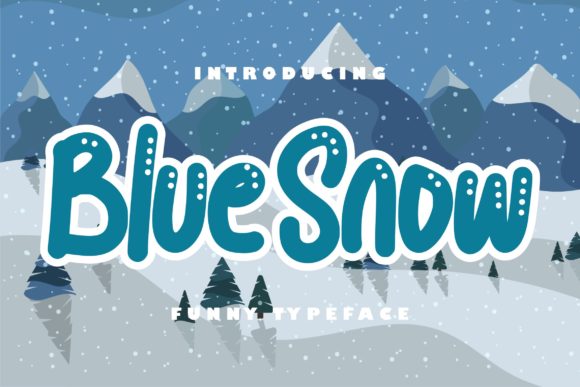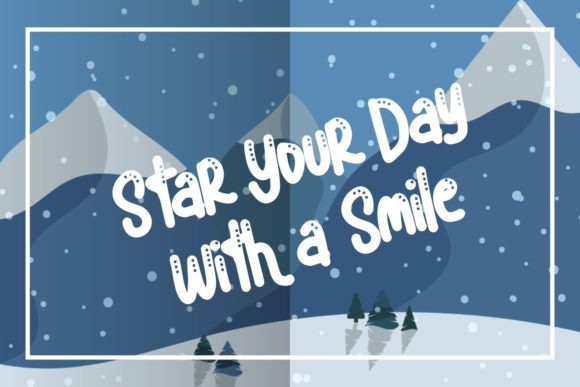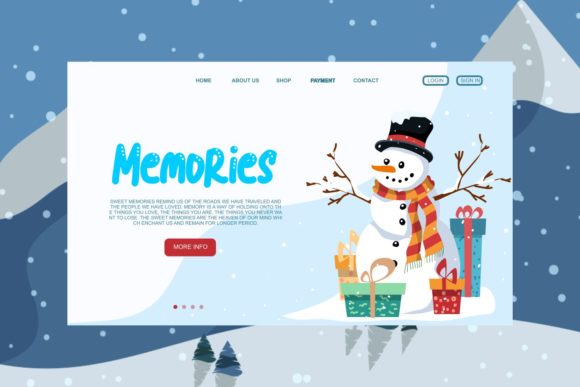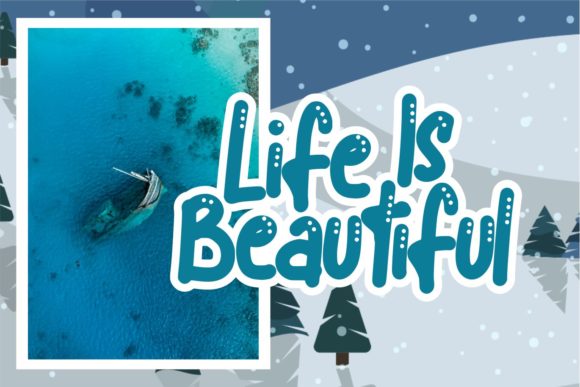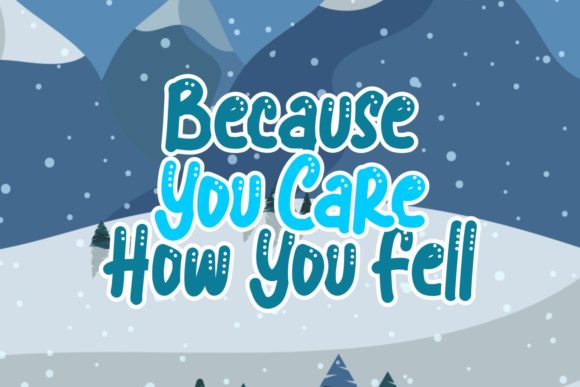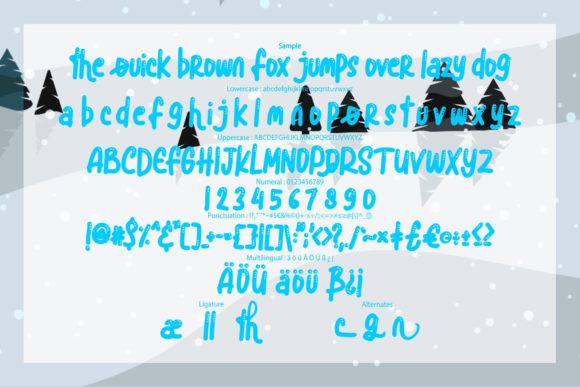
Blue Snow Font
Blue Snow is a sweet and quirky handwritten font, created to match a wide pool a designs. Fun and playful, this enchanting font will
turn any creative idea into a true standout.